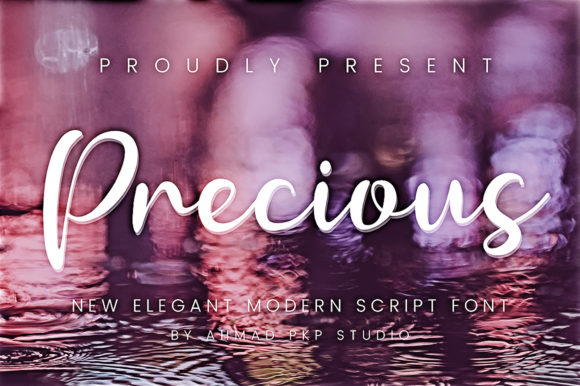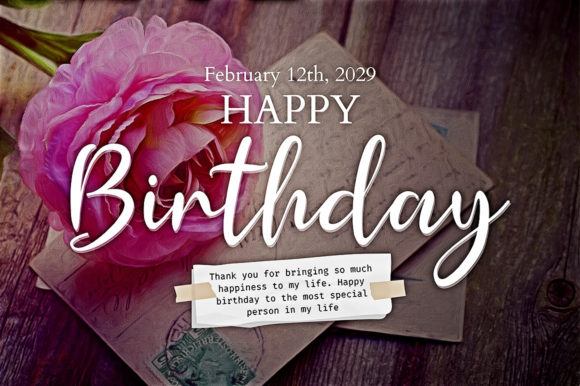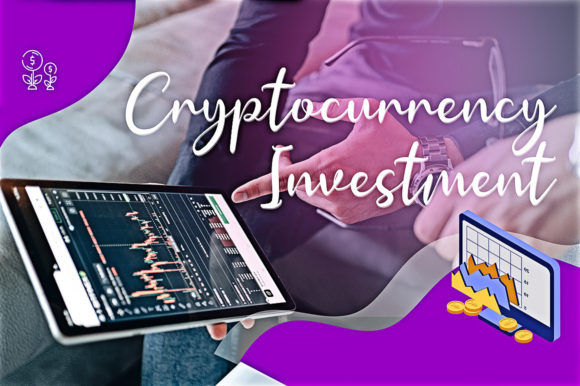
About Precious Font
Precious is a unique and sophisticated script font that captures attention with its distinct and stylish appearance. This font is a perfect choice for various branding projects, including logos, t-shirt designs, sports-related graphics, and more, thanks to its versatility and captivating aesthetic.
With its carefully crafted letterforms and attention to detail, Precious adds a touch of elegance and refinement to any design. Its flowing and graceful strokes exude a sense of luxury and class, making it an excellent fit for high-end brands, fashion-related projects, and creative endeavors that demand a sophisticated touch.
The font’s wide range of possible applications is a testament to its adaptability. From bold and impactful logos to intricate t-shirt designs, Precious effortlessly elevates your projects to new levels of style and professionalism. Its visual appeal makes it stand out in a crowd, ensuring that your designs make a lasting impression on your target audience.
Precious’s unique flair and impeccable form allow it to shine across various contexts and design styles. Whether you’re aiming for a modern and edgy look or a more traditional and timeless aesthetic, this font seamlessly integrates into your vision, enhancing the overall impact of your work.
Moreover, Precious’s flexibility extends to its legibility and readability, ensuring that your message is communicated clearly and effectively. Its clean lines and well-balanced characters contribute to a seamless reading experience, making it suitable for a wide range of design applications.
Incorporating Precious into your design projects empowers you to create captivating visuals that exude style and sophistication. Its distinct and stylish nature will undoubtedly set your work apart and contribute to the success of your branding endeavors, t-shirt designs, and more.